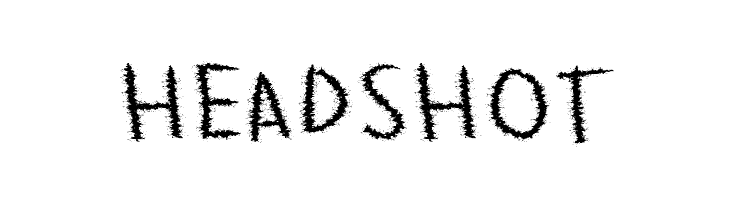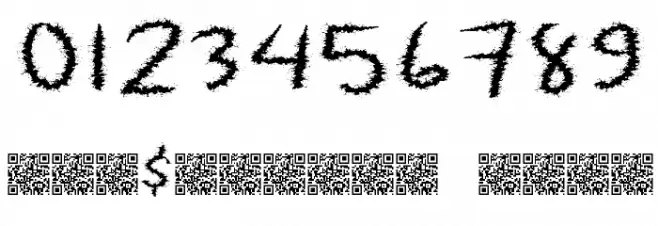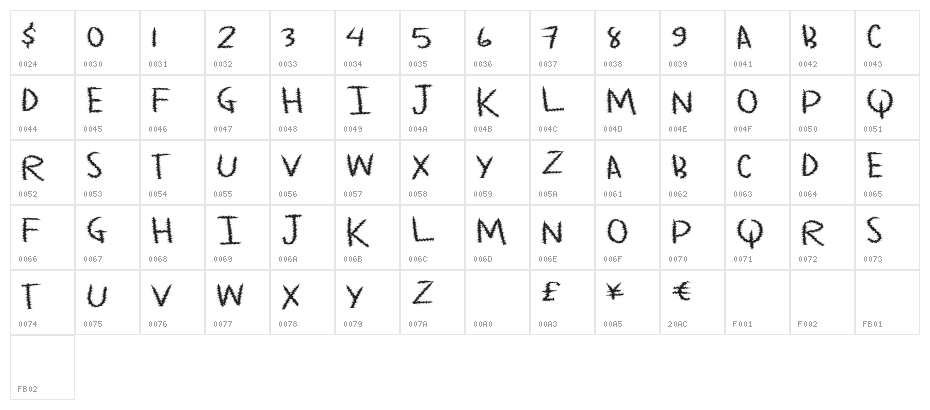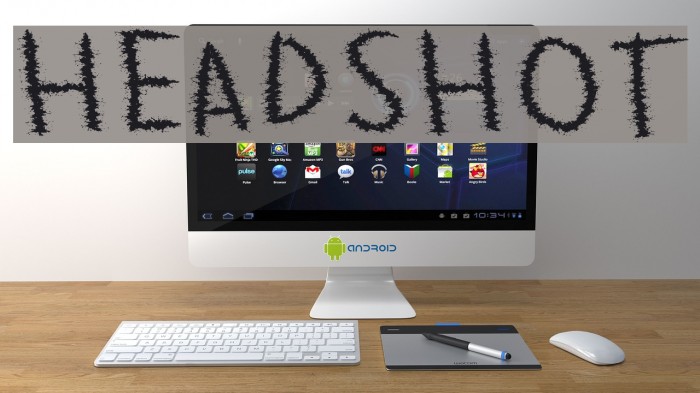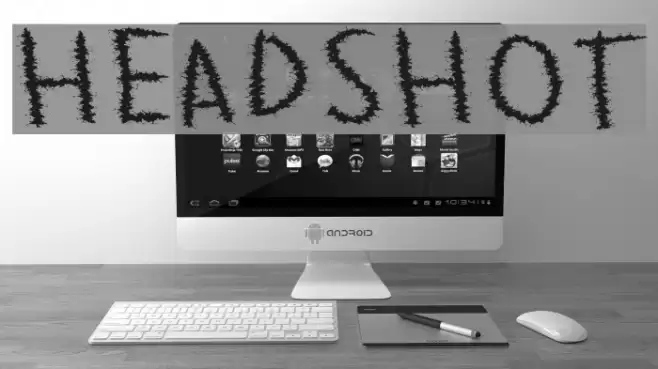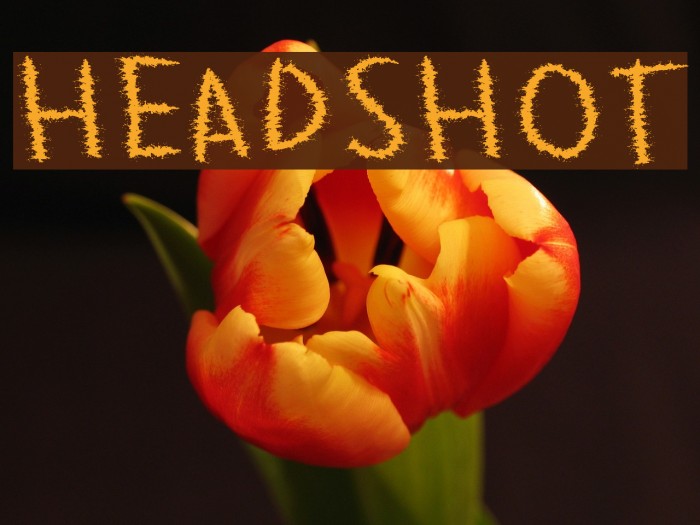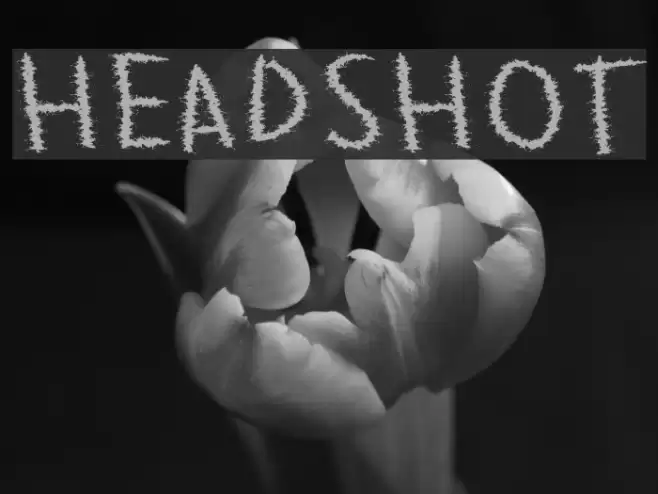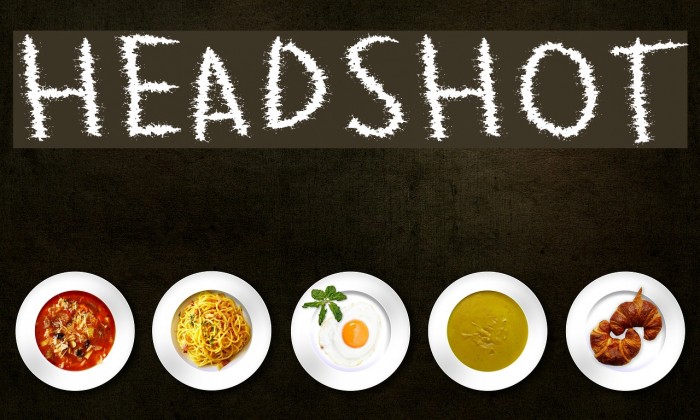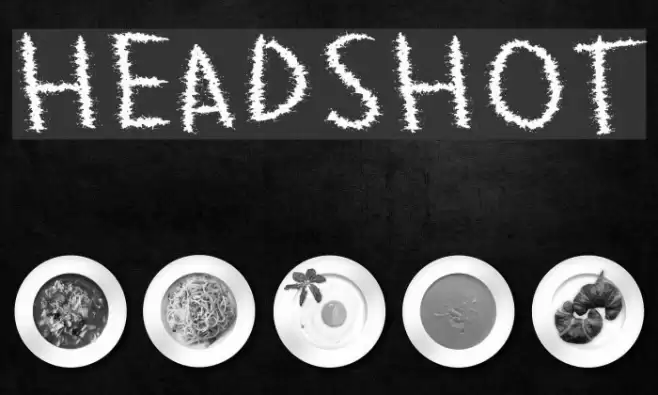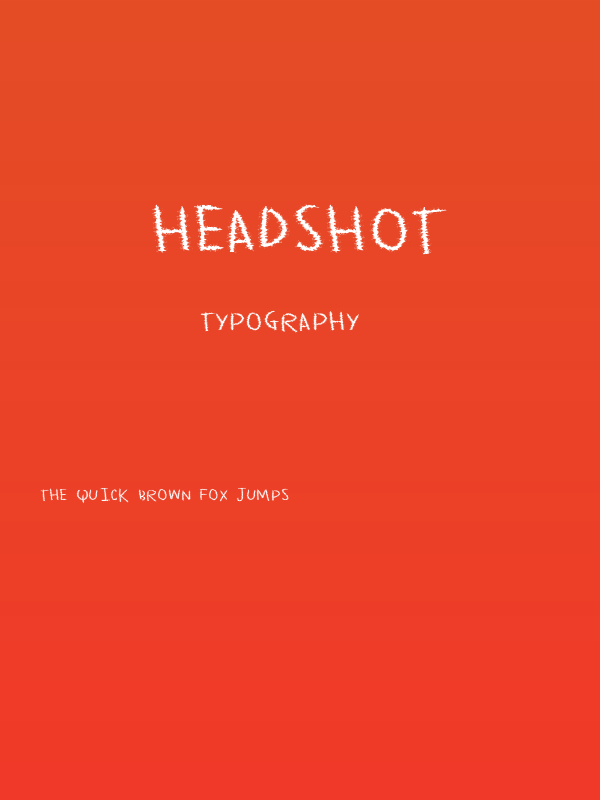
HeadShot Font
HeadShot Description
This font features a unique, jagged appearance reminiscent of hand-drawn or sketched letters. Each character is outlined with a rough, textured edge, giving it a dynamic and energetic feel. The uppercase and lowercase letters maintain a consistent style, with a slightly irregular form that adds to its charm. Numbers and special characters follow the same design, ensuring a cohesive look across all elements. The font's playful and edgy style makes it stand out, perfect for projects that require a bold and unconventional aesthetic.
HEADSHOT UPPERCASE
HEADSHOT LOWERCASE
HEADSHOT OTHER CHARS
| Proposed Projects | Ideal for creative projects such as posters, album covers, and branding that require a bold, artistic touch. |